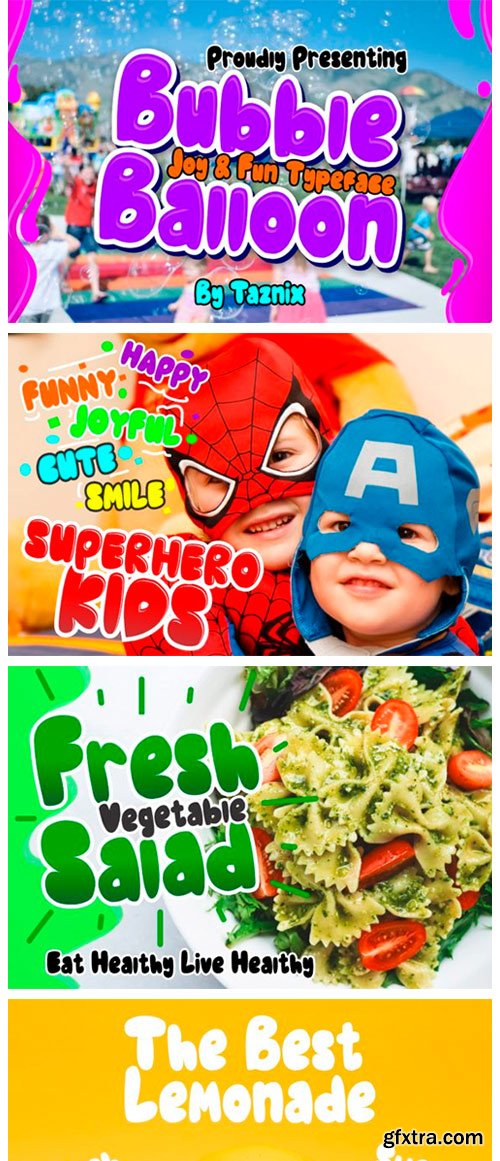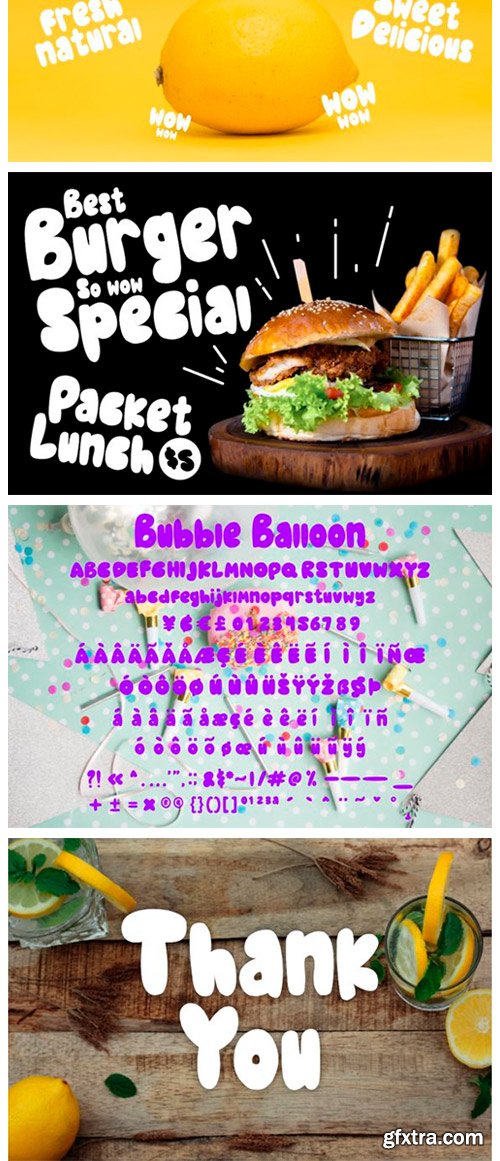
Bubble Balloon Font
Bubble Balloon is a fun and joyfully bold font with a quirky feel. It is perfect for branding projects, logos, wedding designs, social media posts, advertisements, product packaging, and much more!